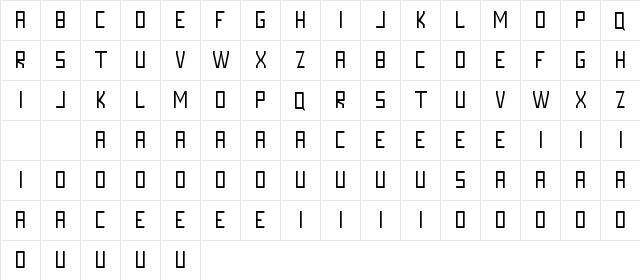
FORNEVER DEMO Light Regular
| Foundry | Edric Studio |
| Designer | M Nouval |
Design Context for FORNEVER DEMO Light Typeface
FORNEVER DEMO Light offers clean, dependable letterforms without strong stylistic allegiance, making it a practical choice for designers who need flexibility. Its slender proportions lend an understated elegance to any composition.